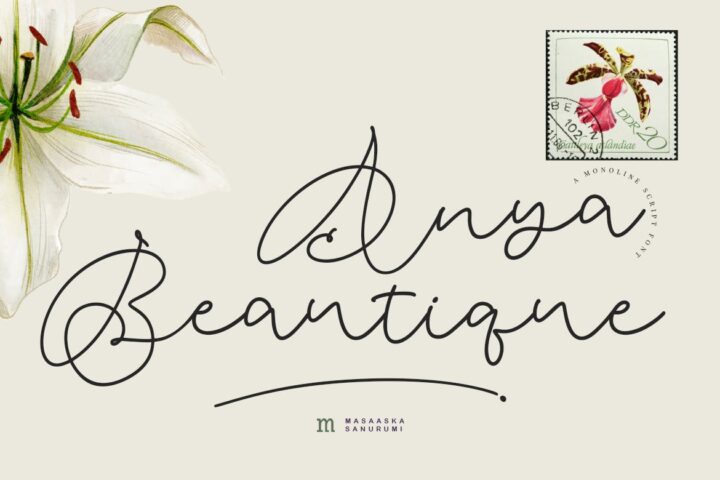
Anya Beautique | A Monoline Script Font
Introducing, Anya Beautique is a monoline script font suitable for your design project needs, such as; wedding theme, social media posts, quotes, overlays on images, posters, print needs, website banners, and more.
Features
A set of uppercase and lowercase glyphs
Number, symbol, punctuation, and swash
Multilingual Support